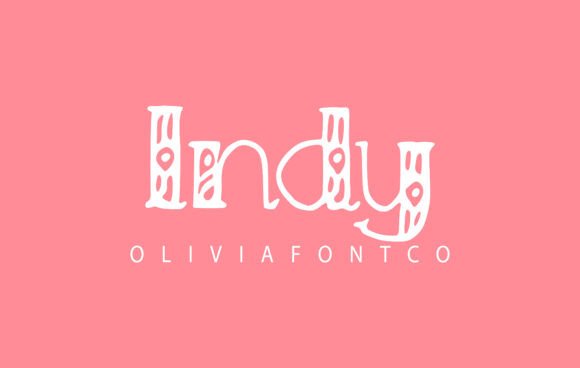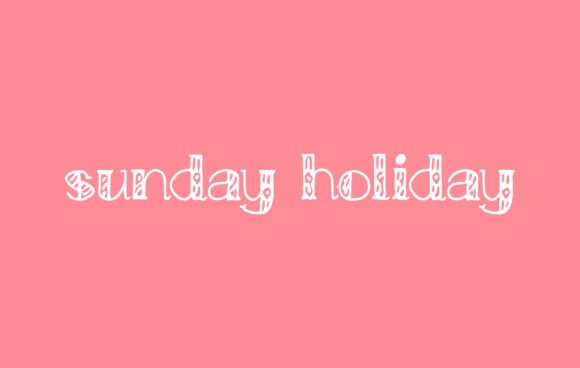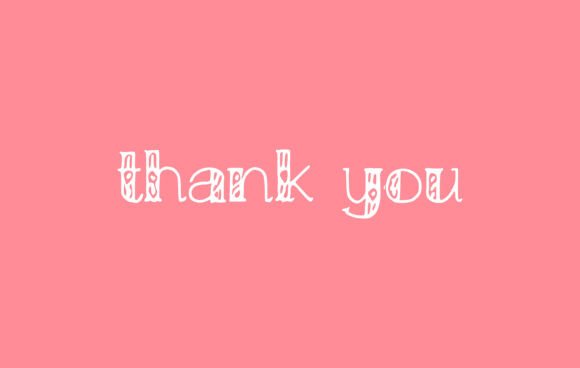
Indy Font
About the Indy Font
Let us introduce you to Indy Font, where timeless design meets modern craftsmanship. Indy font is an authentic handwritten font with a romantic touch. Expertly designed to be a true favorite, this font has the potential to take your creative ideas to the highest level
Indy Font’s romantic, handwritten style shines in headlines, short text blocks, and branding applications where a personal touch is desired. It works exceptionally well for wedding invitations, social media graphics, and short-form marketing materials. However, its less-than-optimal letter spacing makes it unsuitable for large bodies of text or UI elements requiring high readability.
Consider pairing Indy Font with a clean sans-serif like Lato or Open Sans for a balanced contrast, or a more geometric sans-serif such as Futura for a modern feel. For a luxurious touch, a classic serif font like Garamond would complement its romantic charm. Avoid pairing it with other script fonts, as this could lead to visual clutter.
Indy Font’s overall personality is charming and approachable, yet sophisticated. Its slightly informal feel makes it perfect for brands aiming for a friendly, personal connection with their audience, but its elegance ensures it doesn’t appear unprofessional.